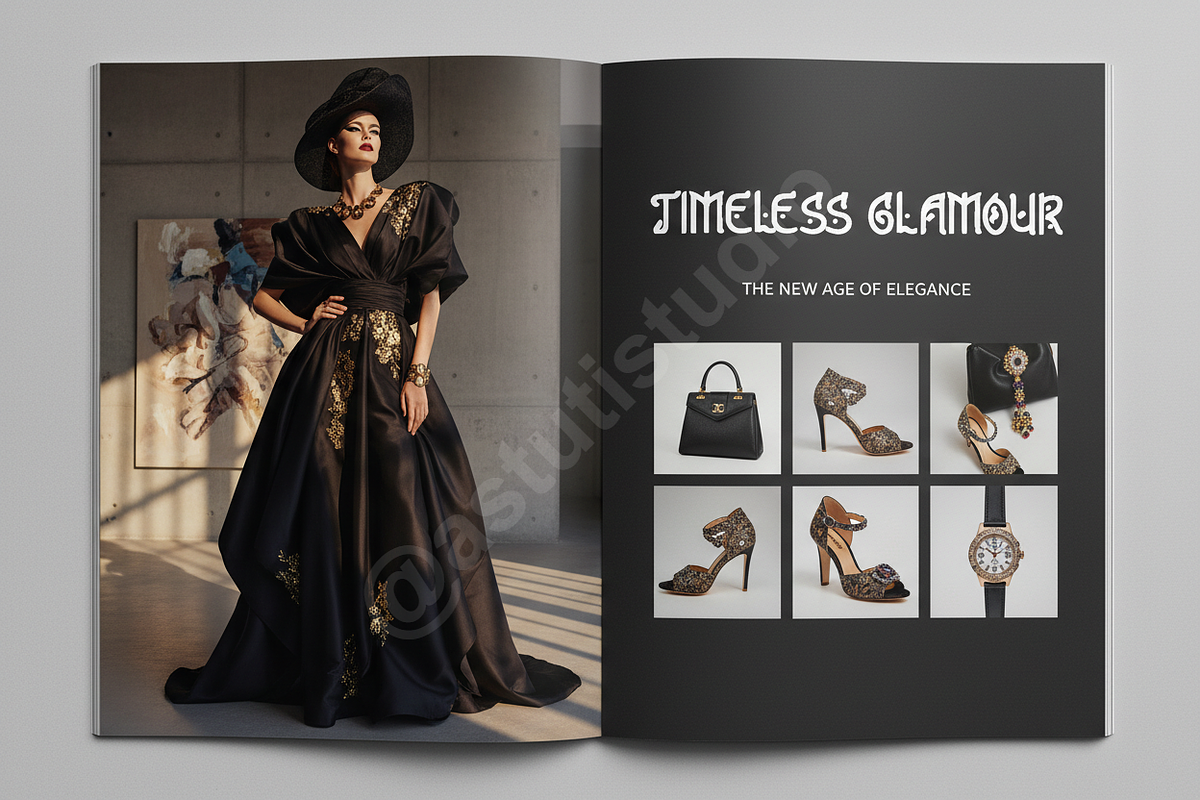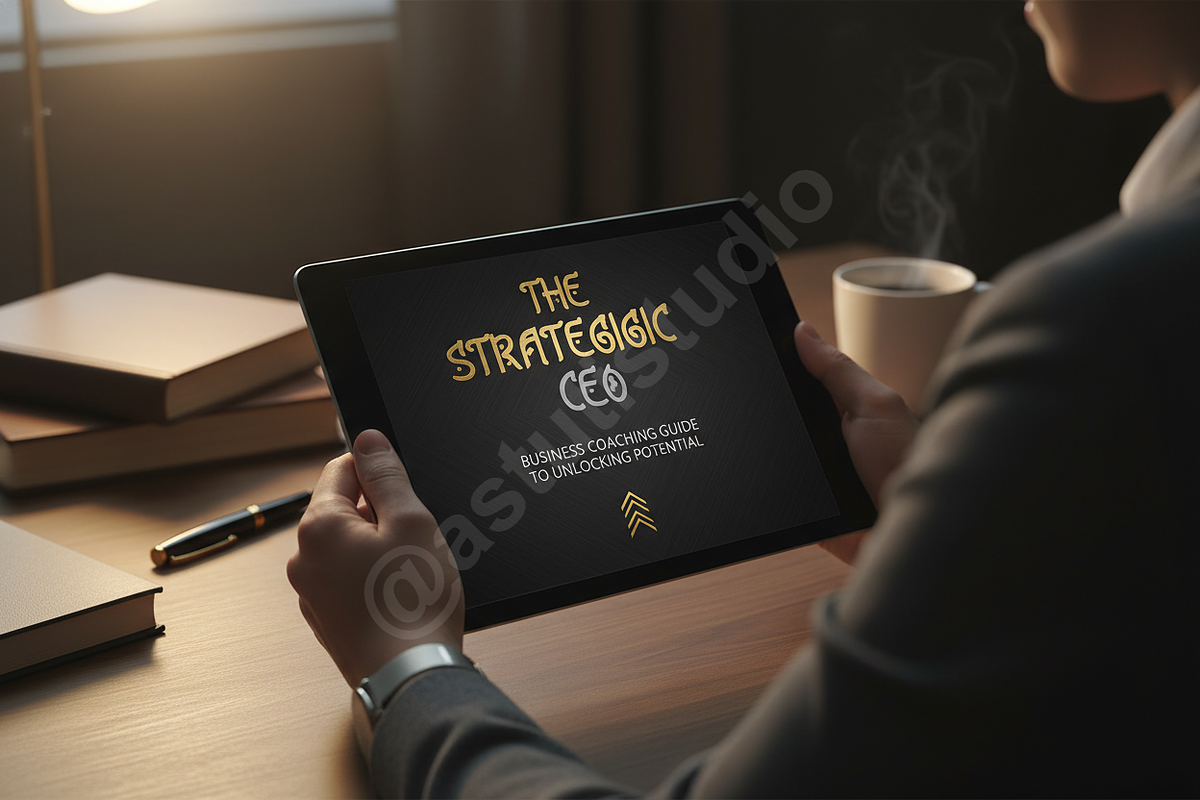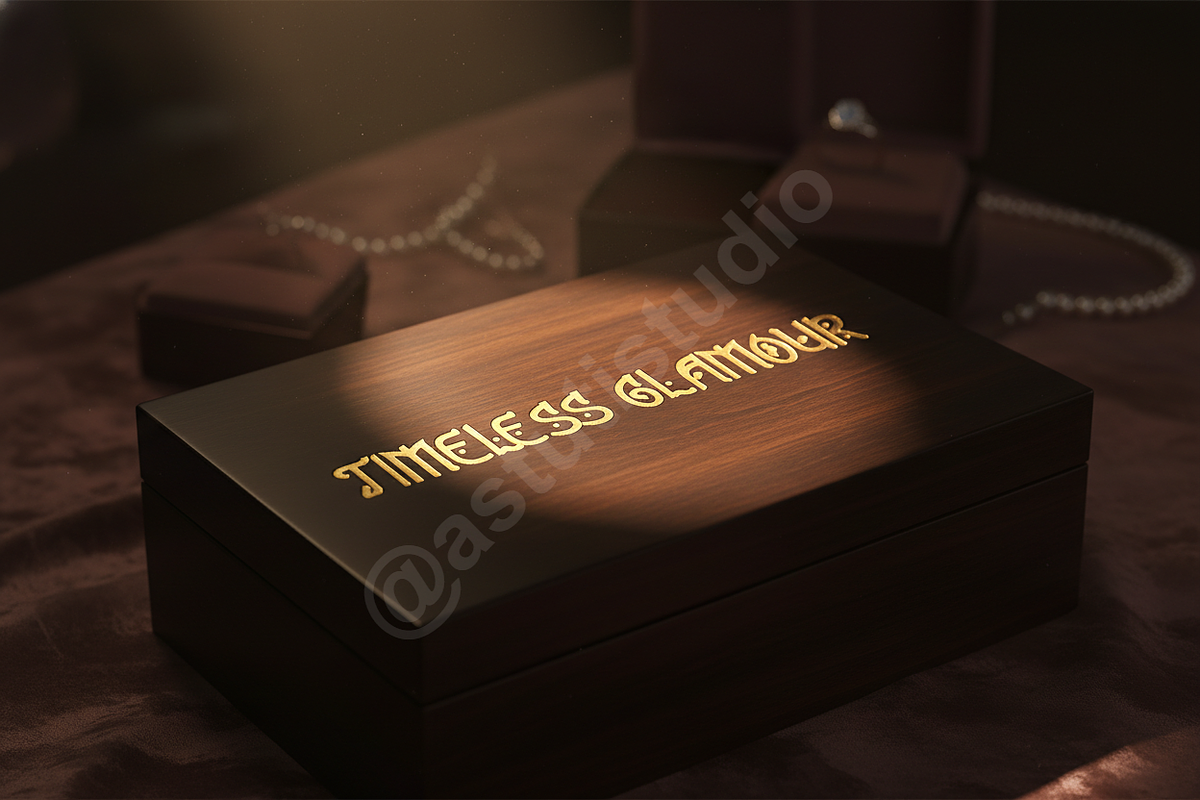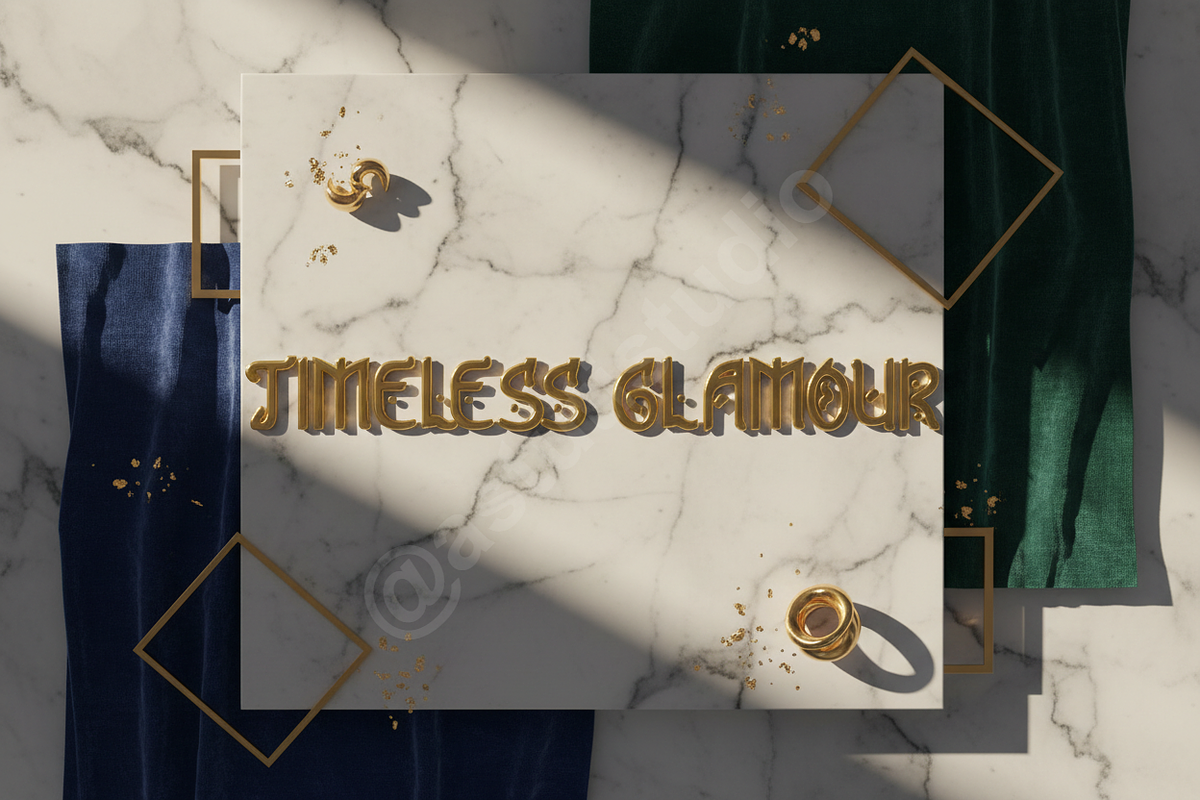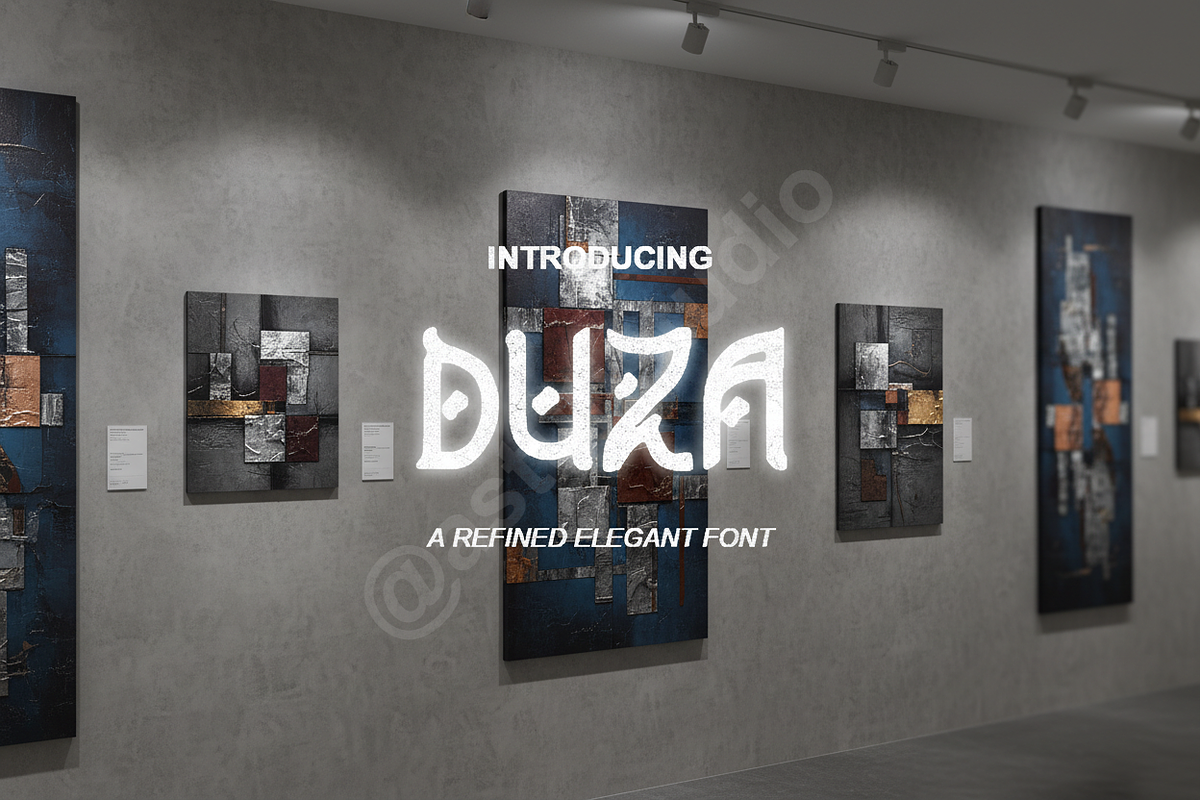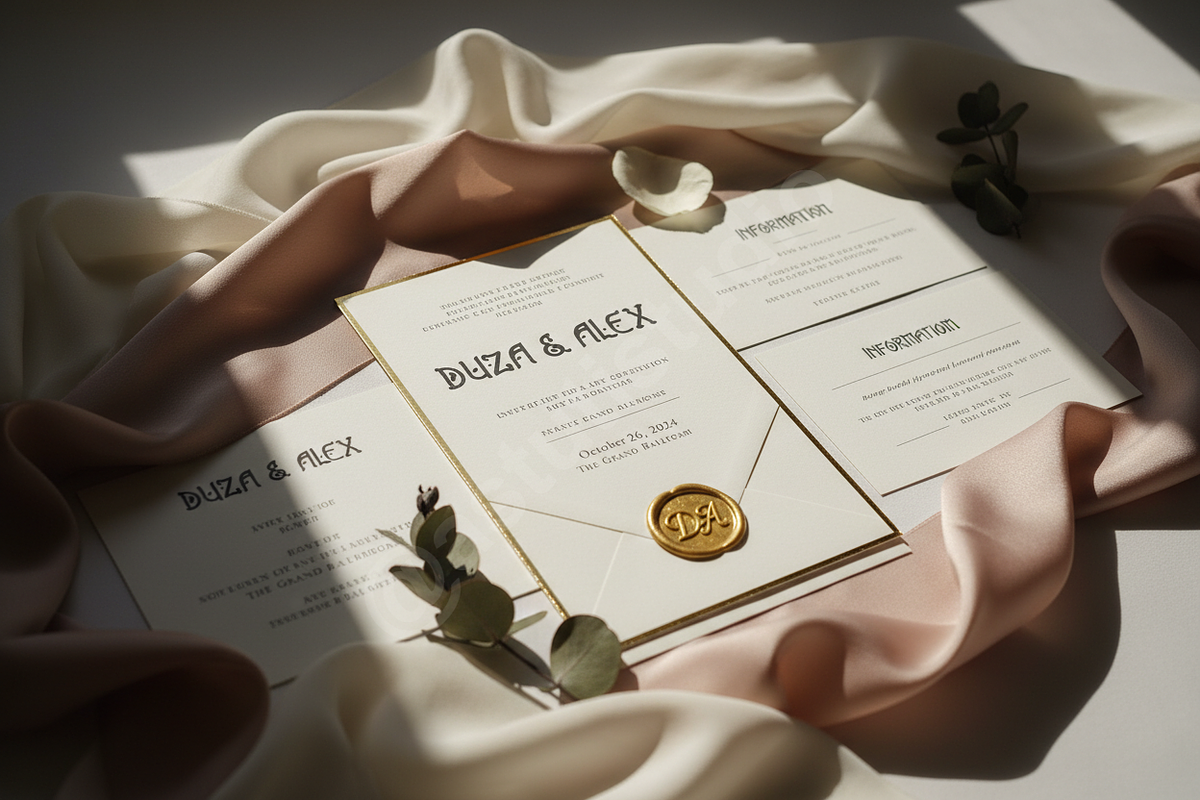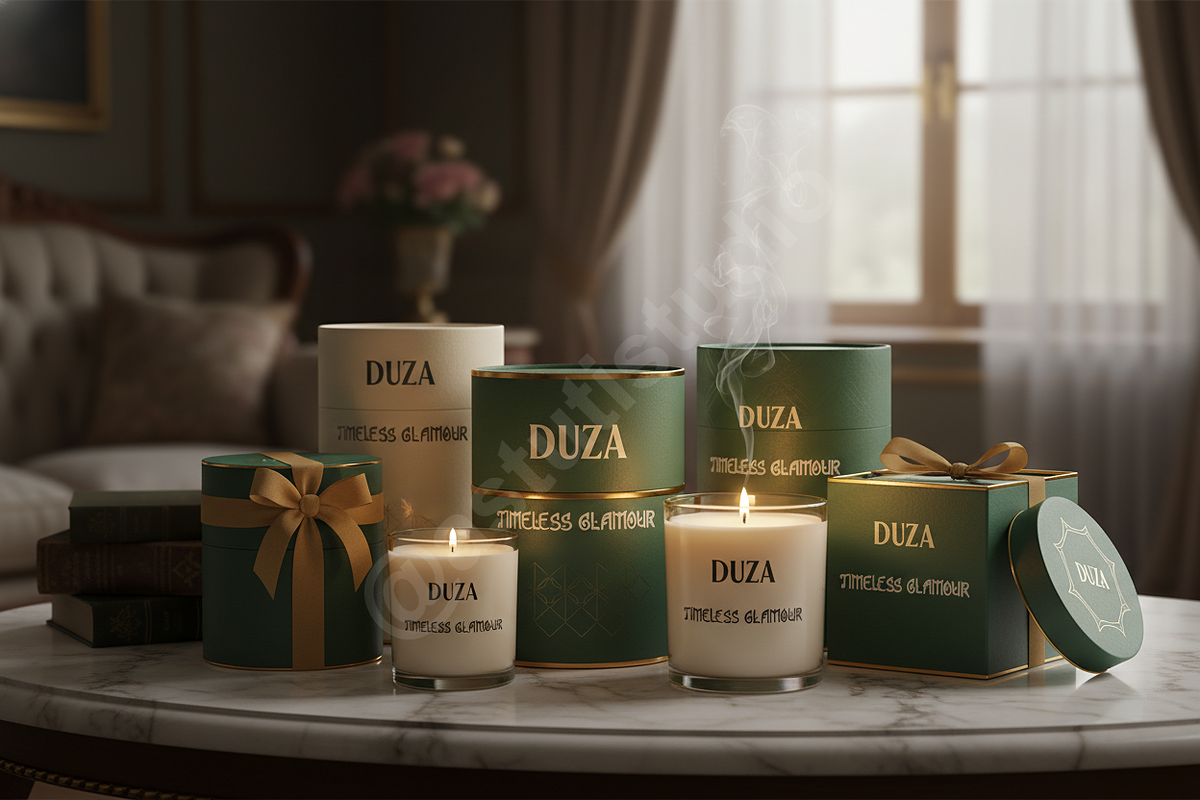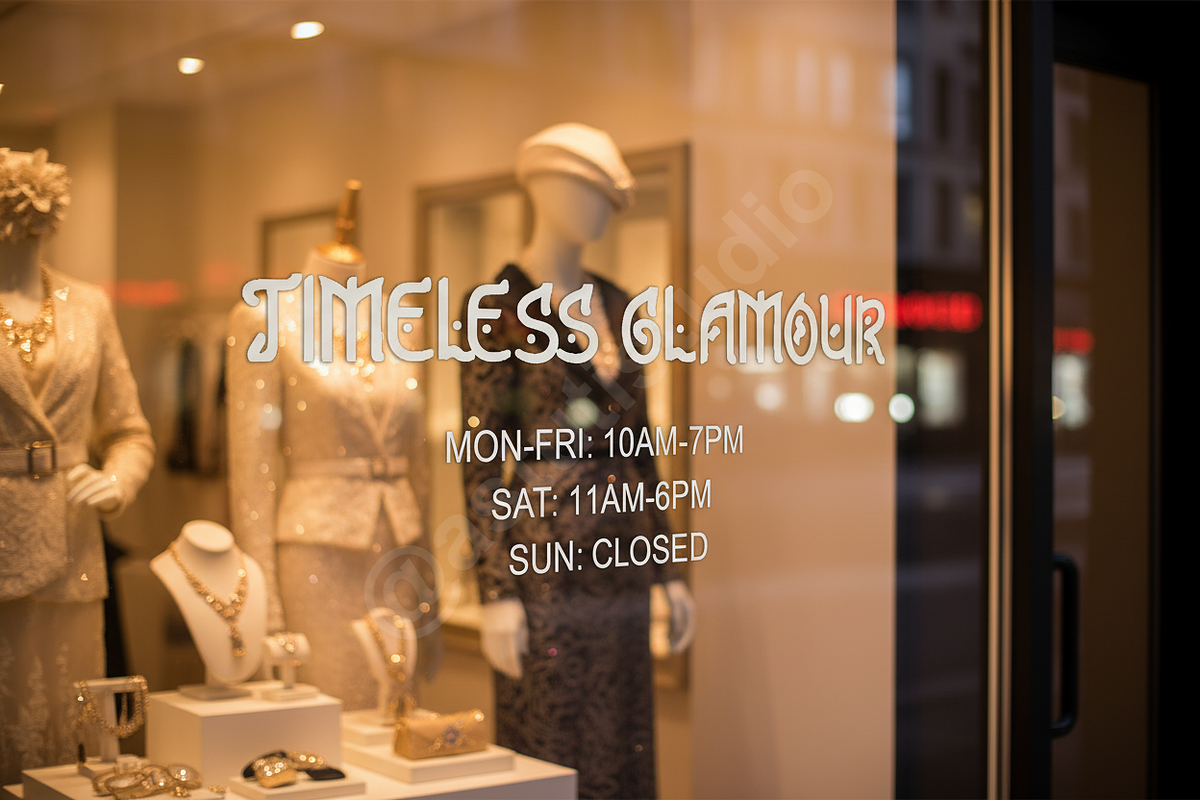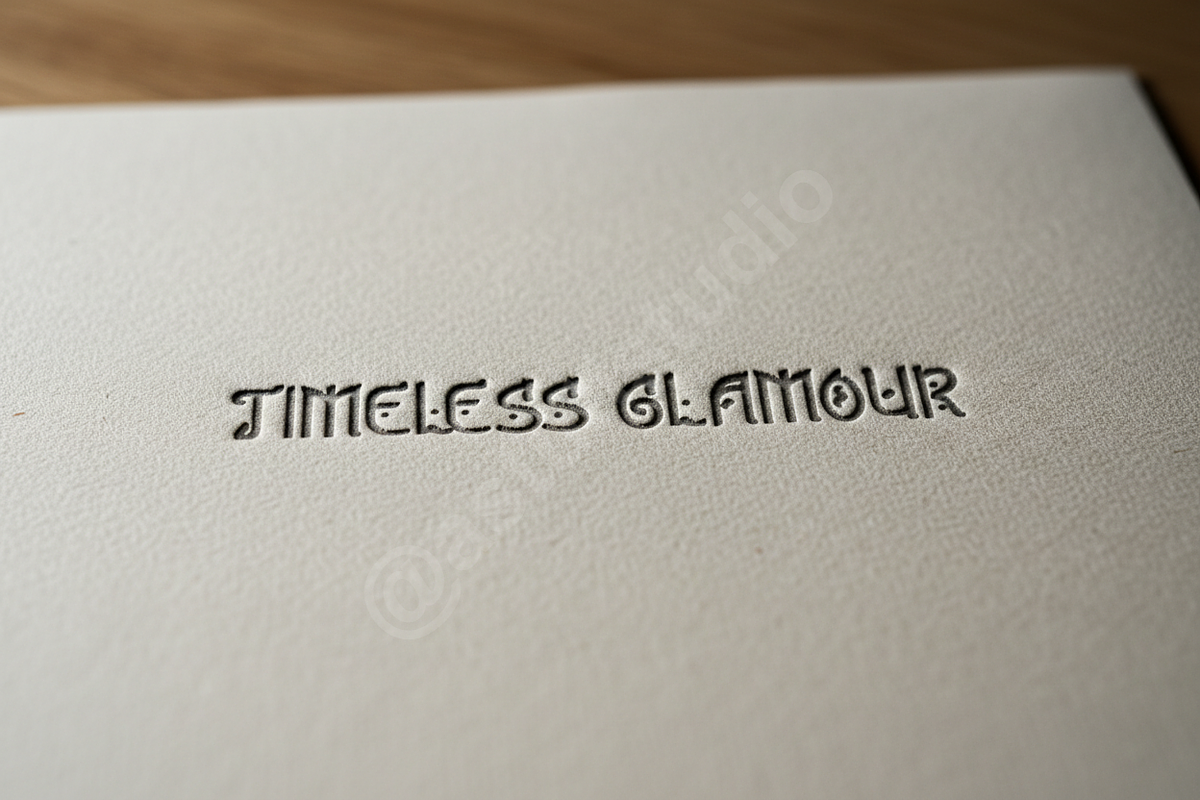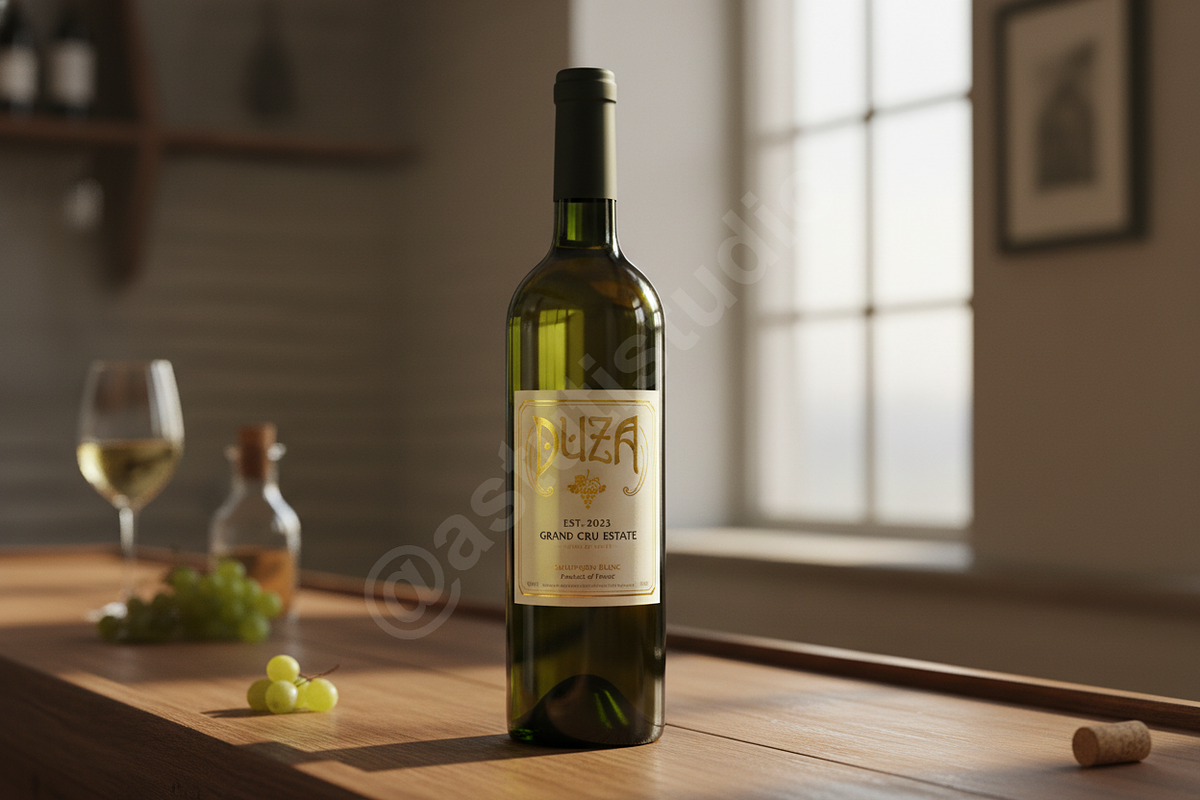
Duza - Elegant Serif Font for Luxury
Introducing Duza, an exquisite serif typeface designed to elevate your projects with unparalleled sophistication and timeless elegance. Duza embodies a luxurious aesthetic, making it the perfect choice for high-end luxury branding, sophisticated editorial layouts, and impactful social media campaigns. Its refined curves and balanced letterforms exude a premium studio quality, ensuring your designs leave a lasting impression of class and distinction.
- Luxurious and sophisticated serif design.
- Optimized for high-end branding and editorial content.
- Exceptional legibility across various sizes.
- Versatile for both headlines and body text.
- Crafted with meticulous attention to detail and balance.